Simplifica Typeface
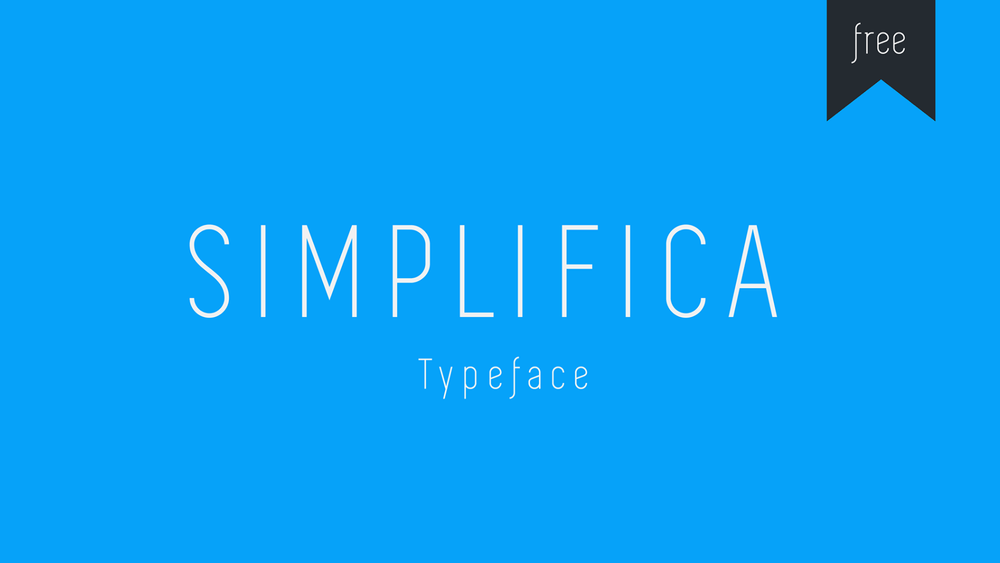
It is a slightly condensed sans-serif typeface featured by an uniform and thin line width. Simplifica is perfect for all designs where are needed a minimalistic touch like brochures, logos, flyers, web design, posters, titles and etc.
Gogoia Font
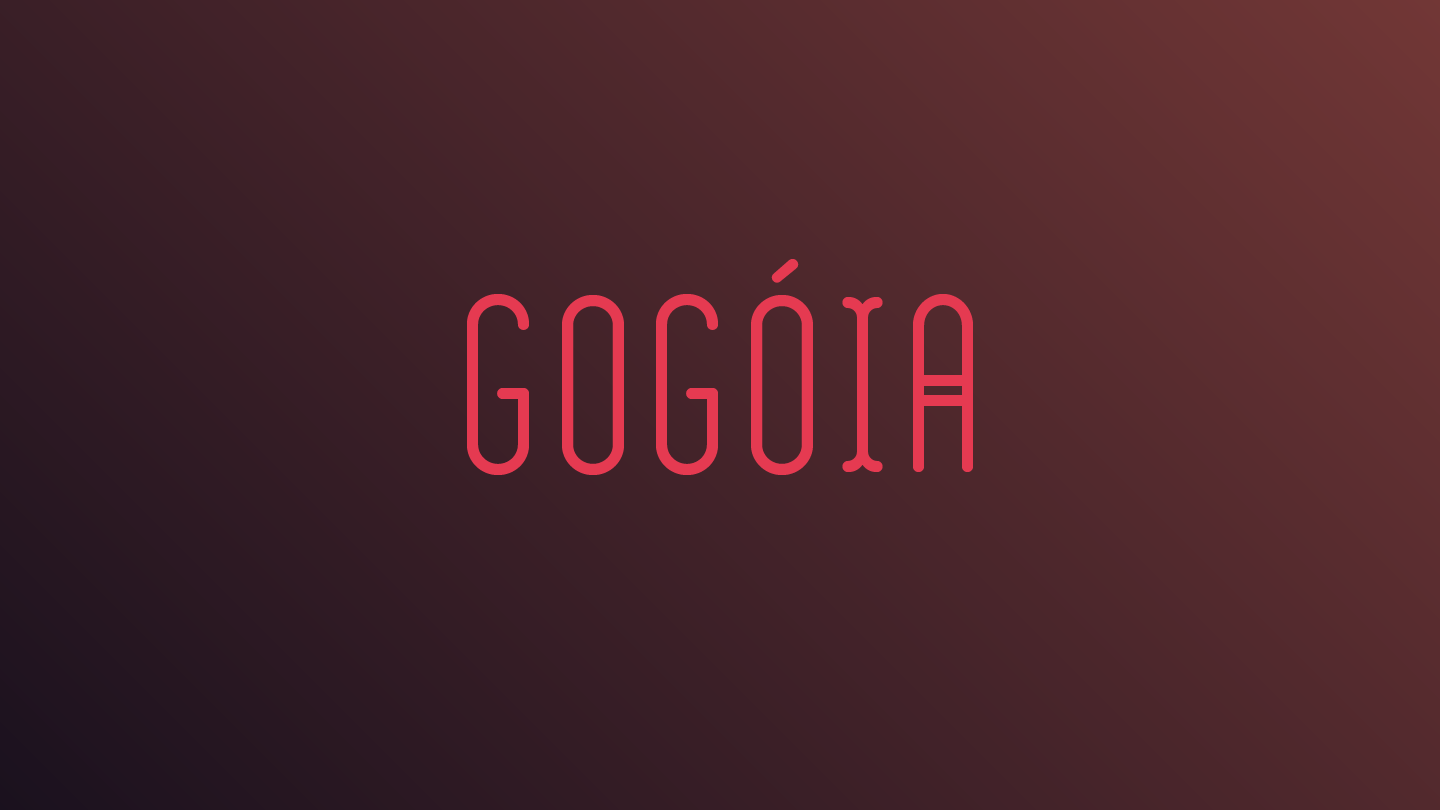
It is a simply and geometric font for your nice typography design project. Perfect for greeting cards, brochures, logos, posters and etc. Free for personal and commercial use.
Perfograma Typeface
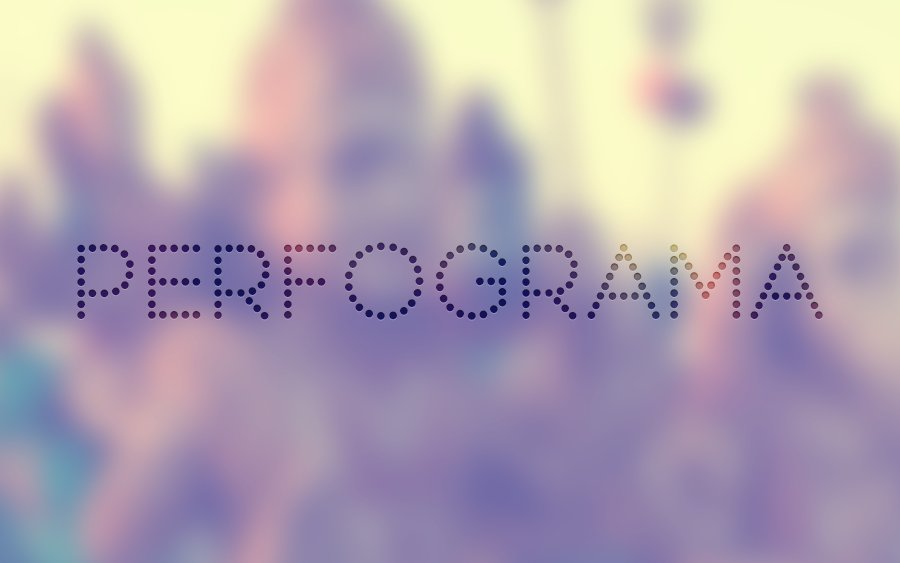
Perfograma – dot-by-dot free display font inspired by early computing machines, Best for posters, tickets, headings, print design and etc.
Mary Ocean Font
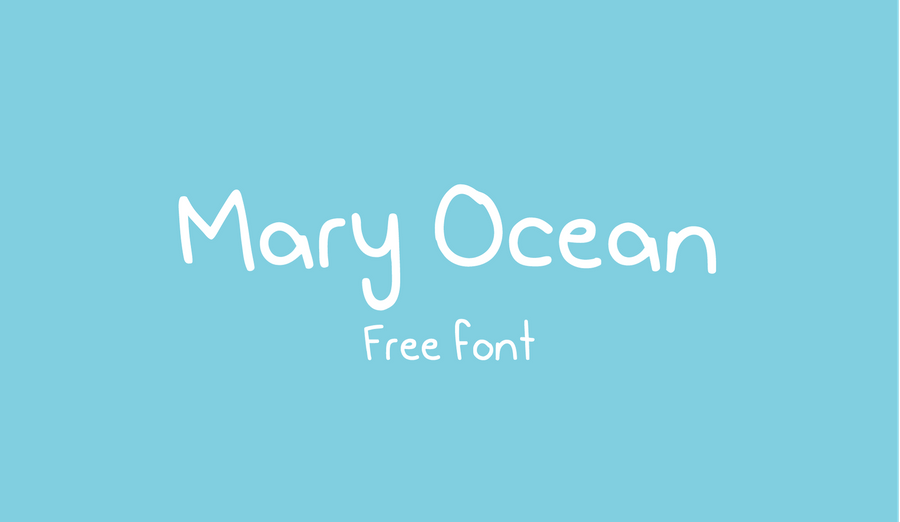
Hand crafted minimalist font for your creative design project. Mary Ocean is perfect for kids and baby stuff, postcards, invitation cards, wedding and etc. Free for personal and commercial use.
Nano Font
This font includes ultra modern minimalist letterforms which make it perfect for modern branding & logos. Free for personal and commercial use.
Nikoleta Typeface
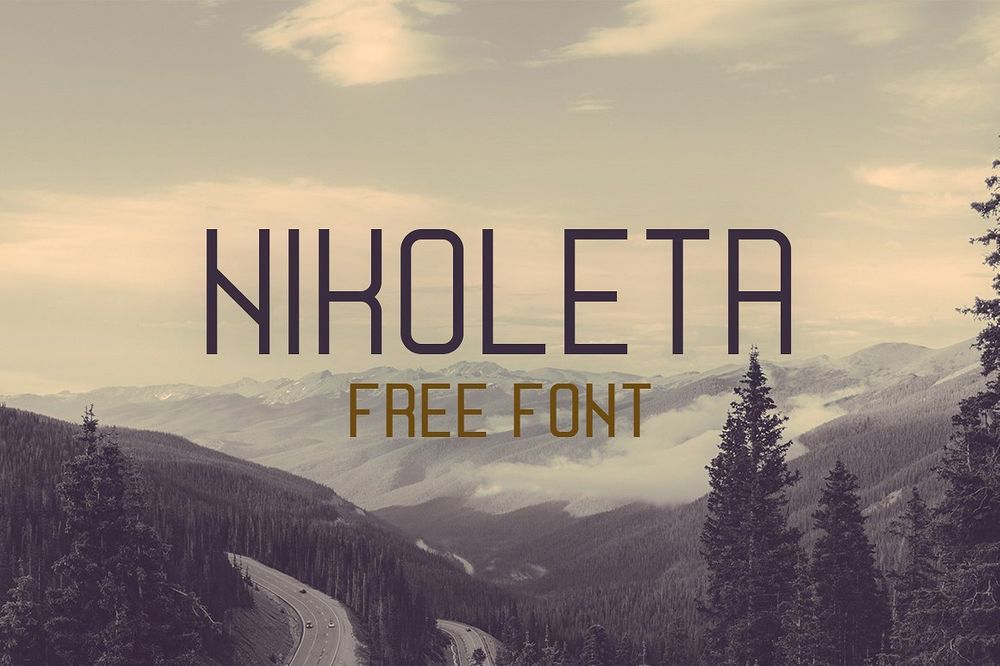
Nikoleta is super tall and super skinny font. Pairs perfectly with modern sans serif fonts and thin monoline script fonts. Best going for headlines, postcards, posters, brochures and etc. Free for personal and commercial use.
Ailerons Typeface
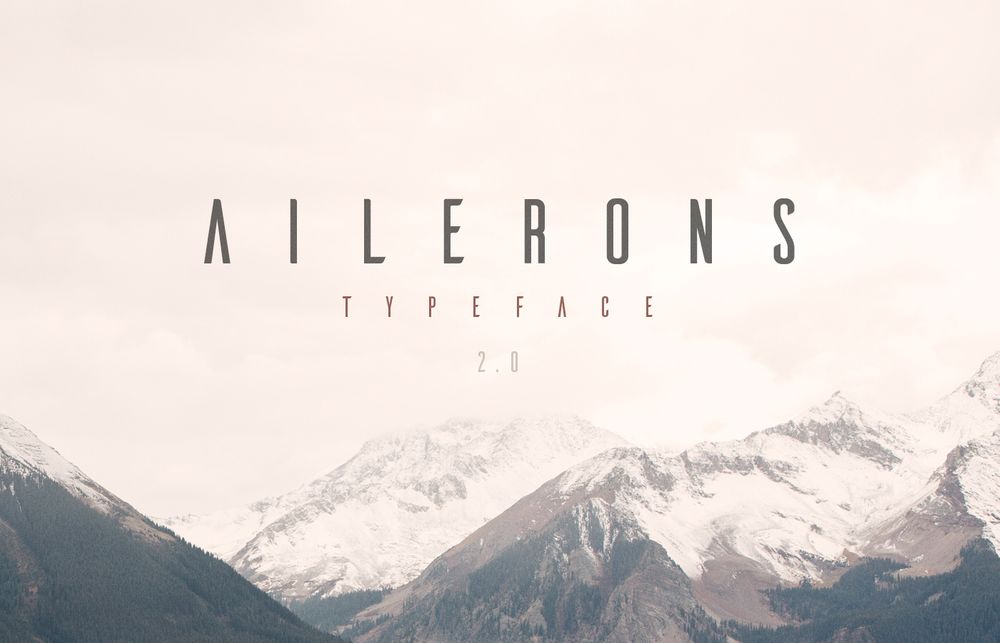
The typeface was designed for an experimental project of airmodels and has a futuristic style. Perfect for logos and branding, covers, titles, posters and etc. Free for personal use only.
Neutral Face Font
A beautiful and modern font available in 2 styles (bold and regular). Perfect for headlines, posters, titles, covers, logos and etc.
Manifesto Font
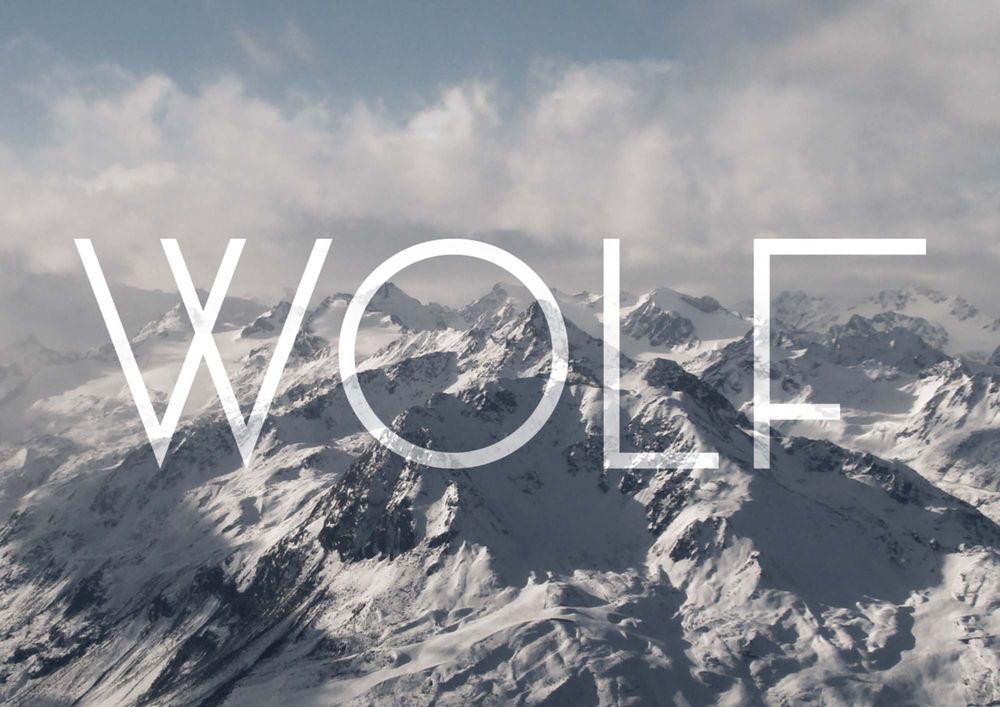
This font inspired by the Italian rationalist movement and is perfect for designers who creates a minimalistic designs such as logos, titles, covers, posters and etc. Free for personal and commercial use.
Gaia Condensed Font
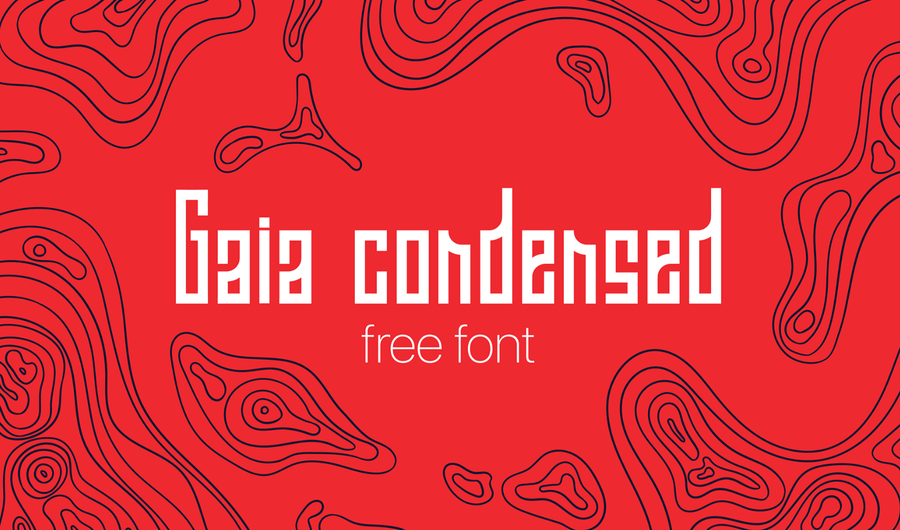
Gaia font brings unique designs with sharply curved letters and narrow widths. Ideal for cyrillic type designs, books, covers, t-shirts and etc. Free for personal and commercial use.
Anurati Font
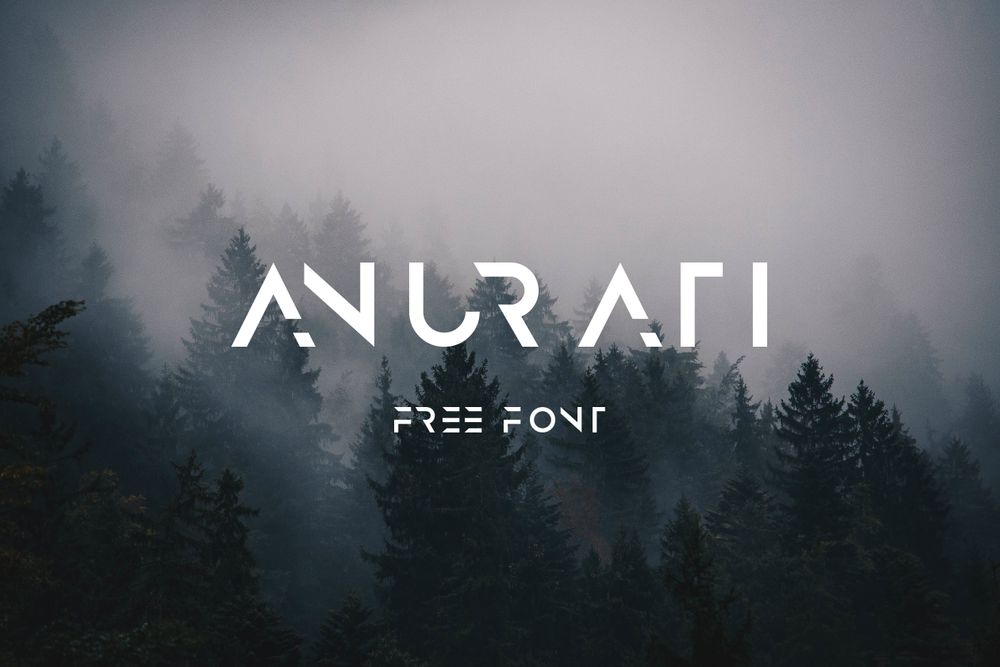
This modern font consists of angled letterforms that utilize the gestalt theory of closure. Ideal for logos and branding, posters, movie titles and covers, flyers and etc. Free for personal use only.
Skyer Typeface
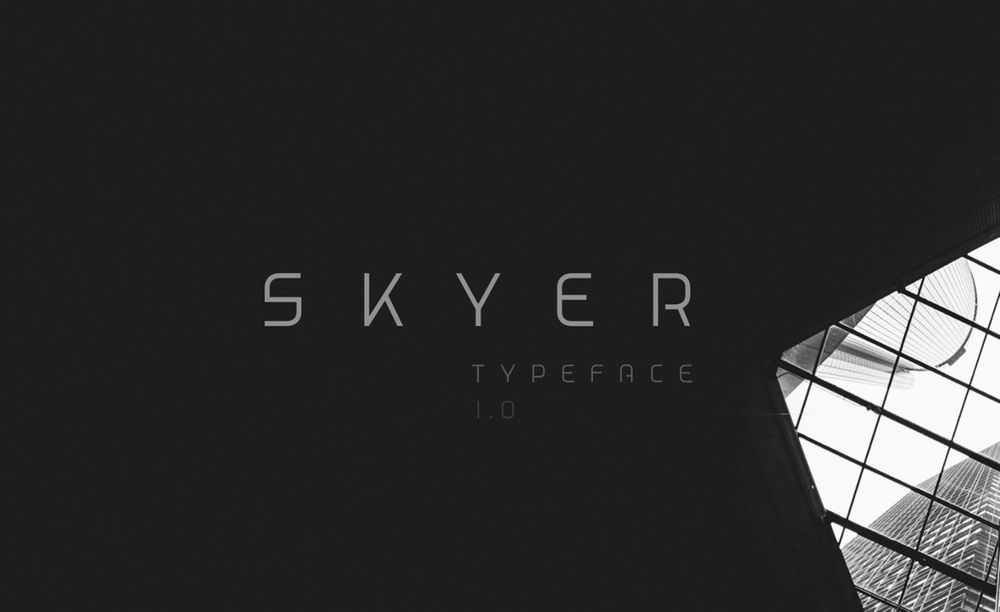
Skyer is futuristic and simply typeface for your minimalist design. It is also ideal on many different designs such as logos, covers, posters, flyers, menu and business cards and etc. Free for personal use only.
Blanka Font
Blanka is futuristic and always modern type for different kind of designs such as logos and branding, covers, posters, flyers, invitation and business cards. Free for personal use only.
Silka Mono Font
Silka Mono is a sans serif with the regular style font available for free. Perfect for modern logos, brochures, invitation cards, covers and etc.
Alivia Font
This handwritten font will turn into a diamond of your designers toolbox. Perfect for digital and print design projects. Also great for wedding invitation, baby shower invites, postcards, greeting cards and etc.
Uthman Font
It is a think brush font with modern feel. Ideal for signature, stationery, logo, typography quotes, magazine or book cover, website header, clothing, branding, packaging and etc.
Raleway Font
It is an elegant sans-serif typeface family intended for headings. Also great for titles, covers, books, text, posters, logos and etc. Free for personal and commercial use.
Gilroy Font
This font is a modern sans-serif typeface with a geometric touch. Gilroy is perfect hor headings, titles, text, logos, apparel design, brochures, posters, flyers and etc.
Lovelo Font
Lovelo is absolutely handsome font with 3 different styles. It is perfect for web design, text, headlines, titles, covers, brochures and etc.
Snah Font
It is a free, fun and quirky typeface that was designed by a young boy with a passion for letters, numbers, and cool ideas. Snah is perfect for books, kids designs, digital art, covers and etc.
Dissolve Typeface
It is a sci-fi futuristic and modern font for minimalisti design needs. Dissolve is ideal for logos and branding, posters, flyers, t-shirts and etc. Free for personal and commercial use.
Ultima Typeface
Ultima is clean, minimalistic and modern font family. It comes with 6 fonts. Perfect for small designs, web and graphic projects.
Giorgio Font